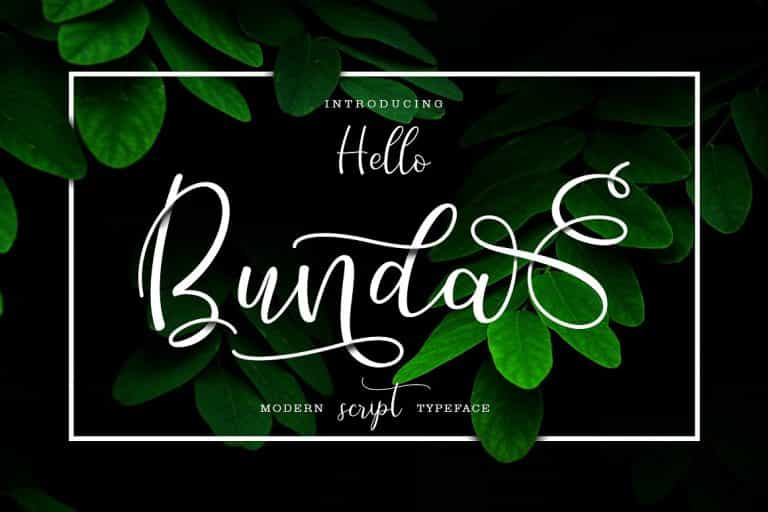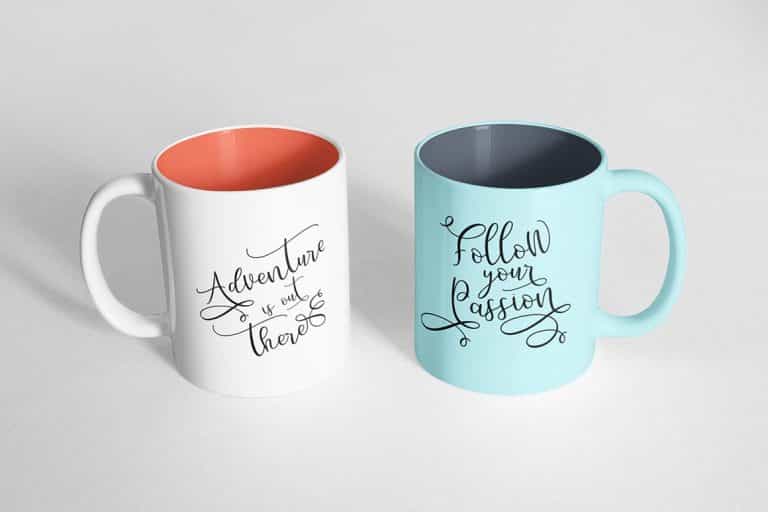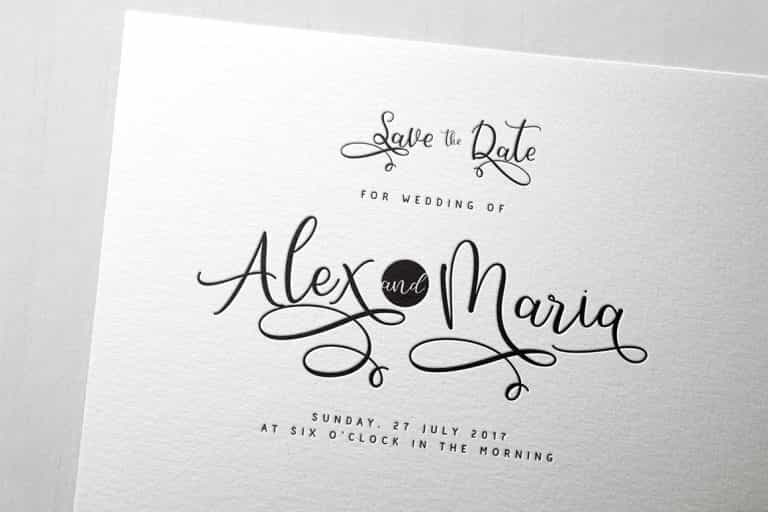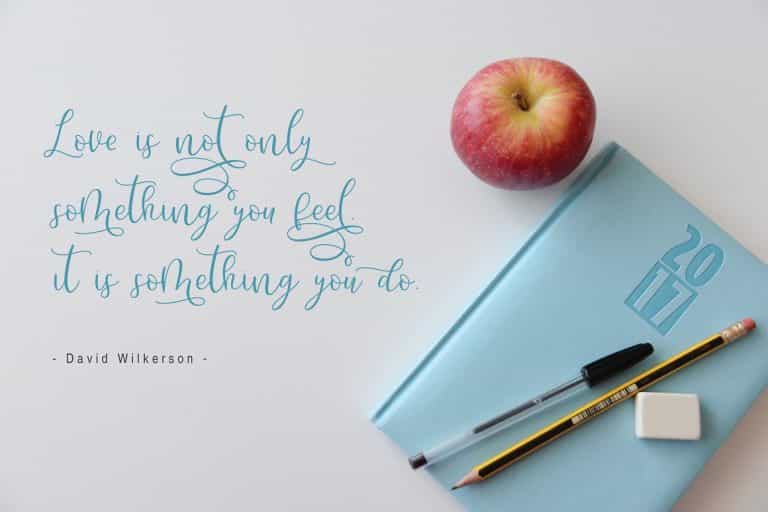
Discover Hello Bunda Script Font, part of the Calligraphy Handwritten collection—a versatile and unique font perfect for adding a personal touch to your projects. Download it for free and enjoy crafting designs with style, from invitations to social media posts. This font is available exclusively for personal use, giving you the freedom to create without limits. Unlock your creativity with Hello Bunda Script Font today!
Introducing Hello Bunda Font. This is Hello Bunda Typeface, straightforward and at the same time fantastic to produce lettering. Just type your words and then you will see that great results immediately. Hello Bunda is a modern script font, every single letter has been meticulously designed to make your text look beautiful.